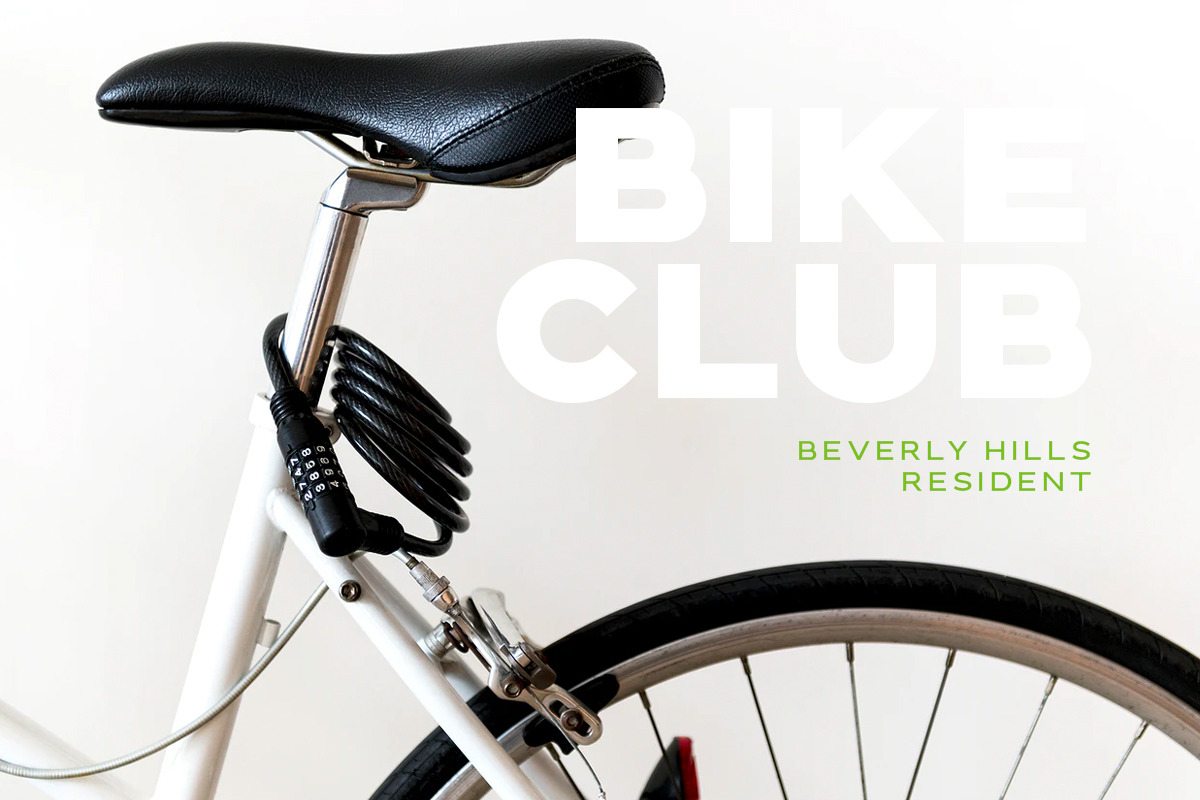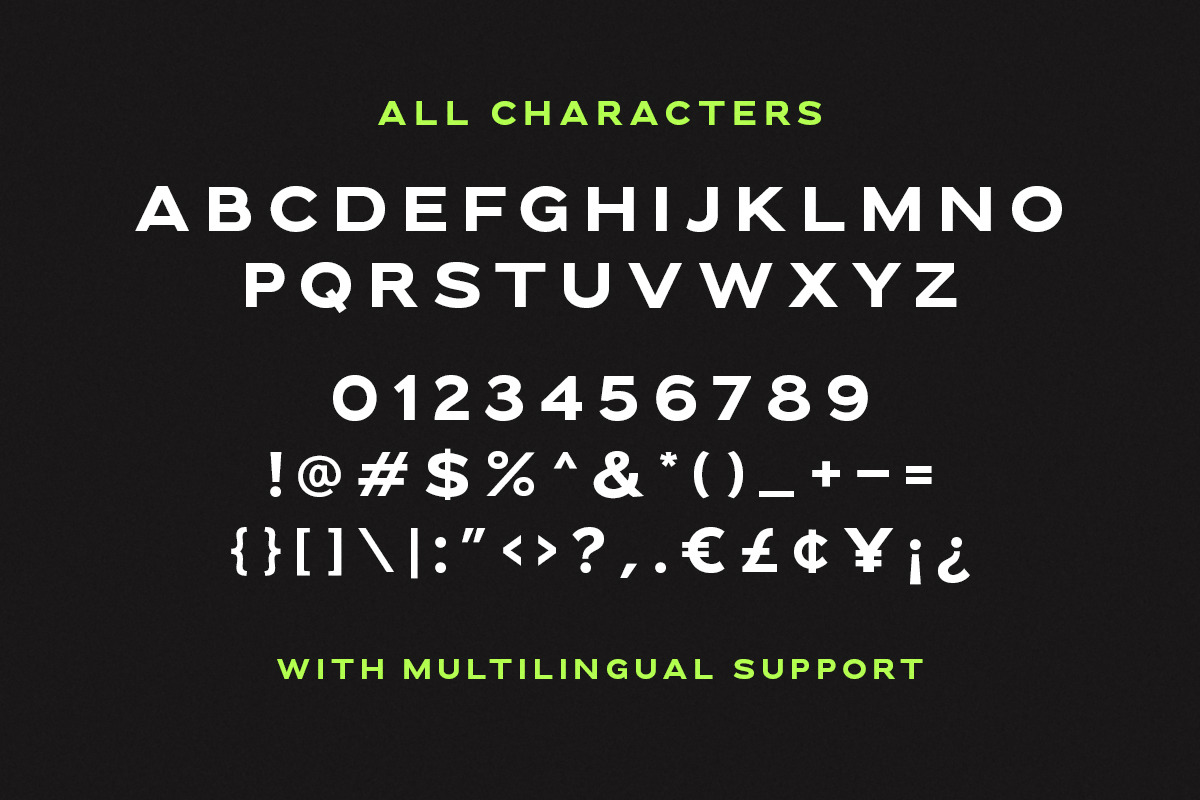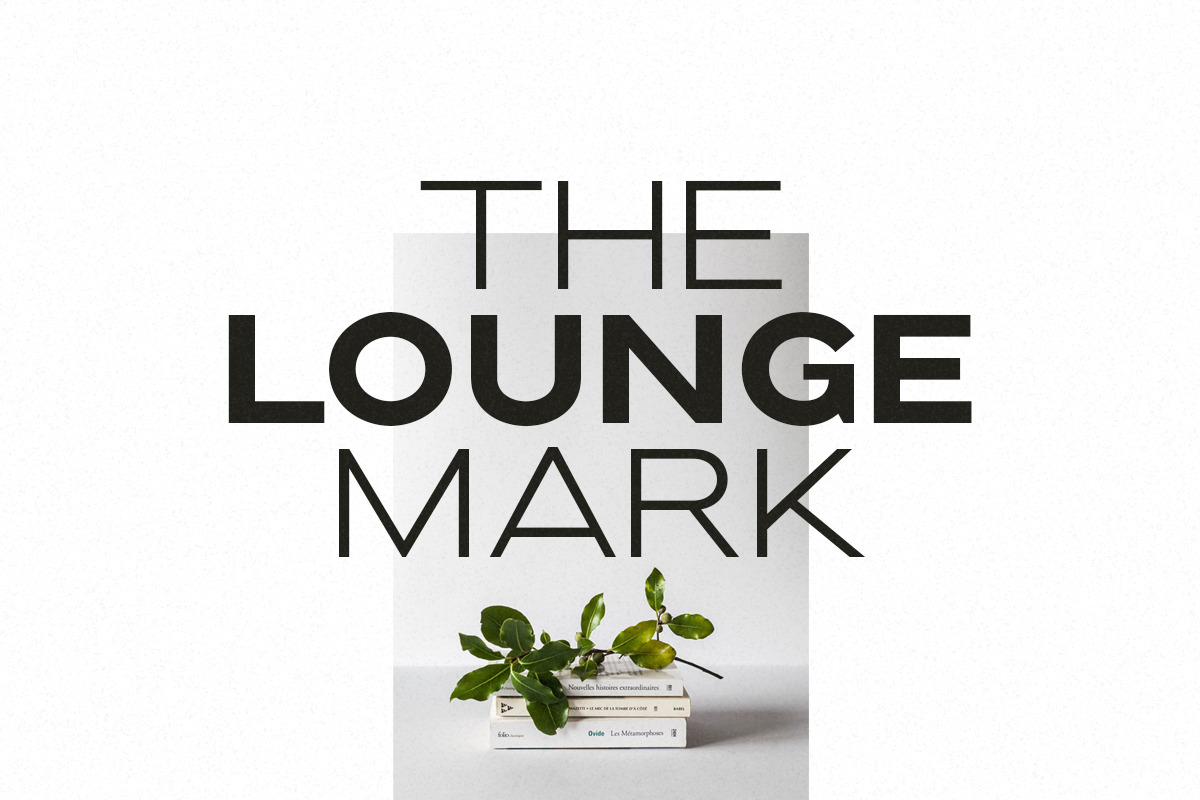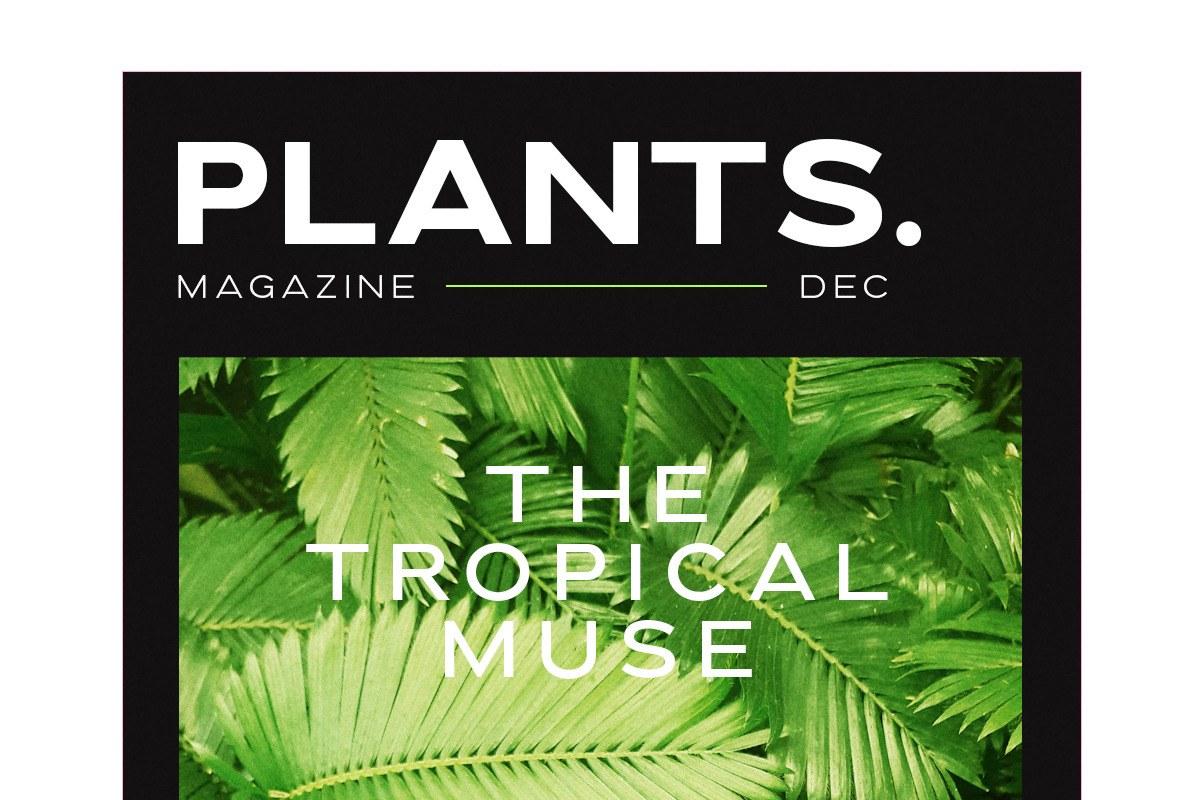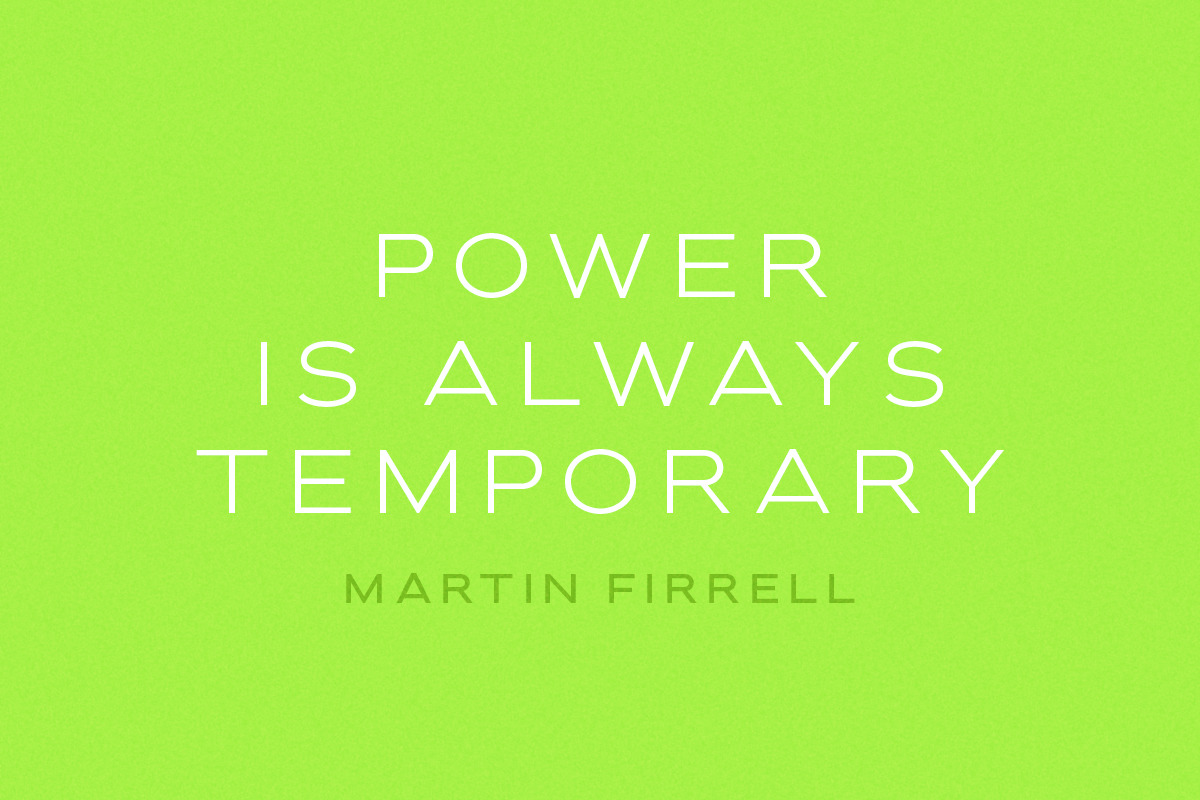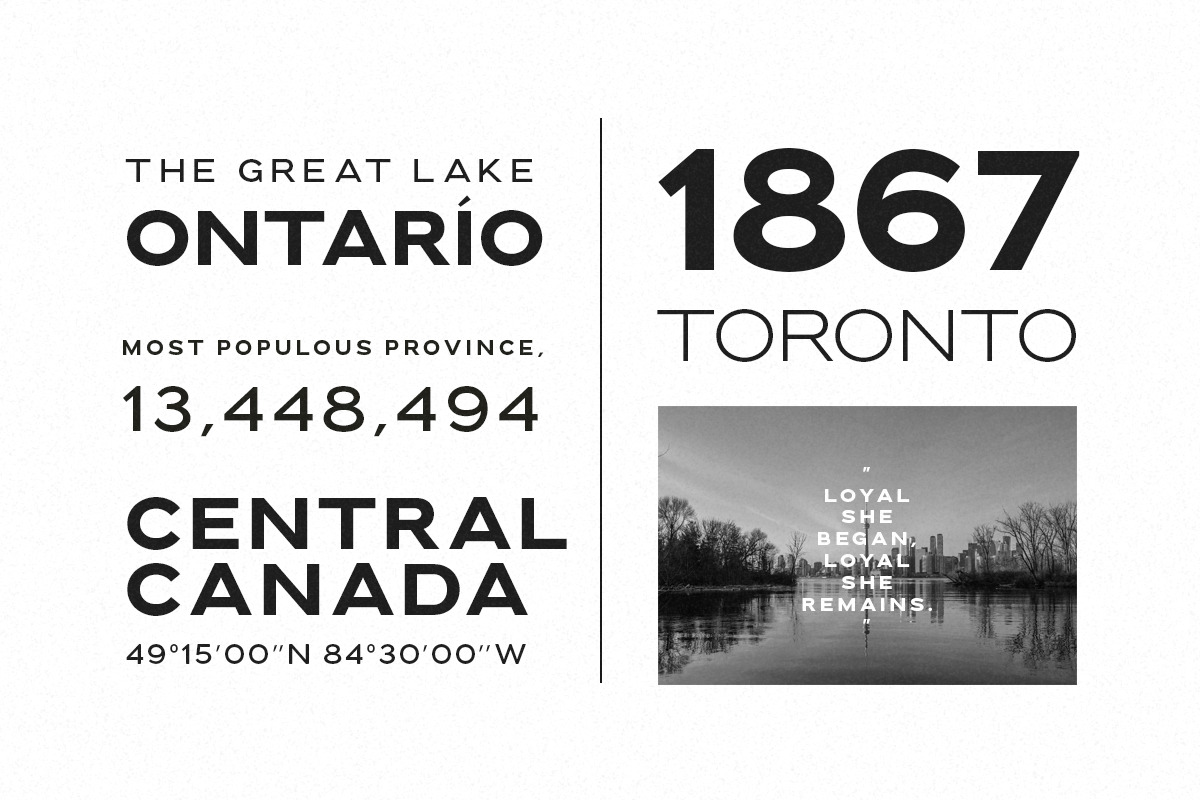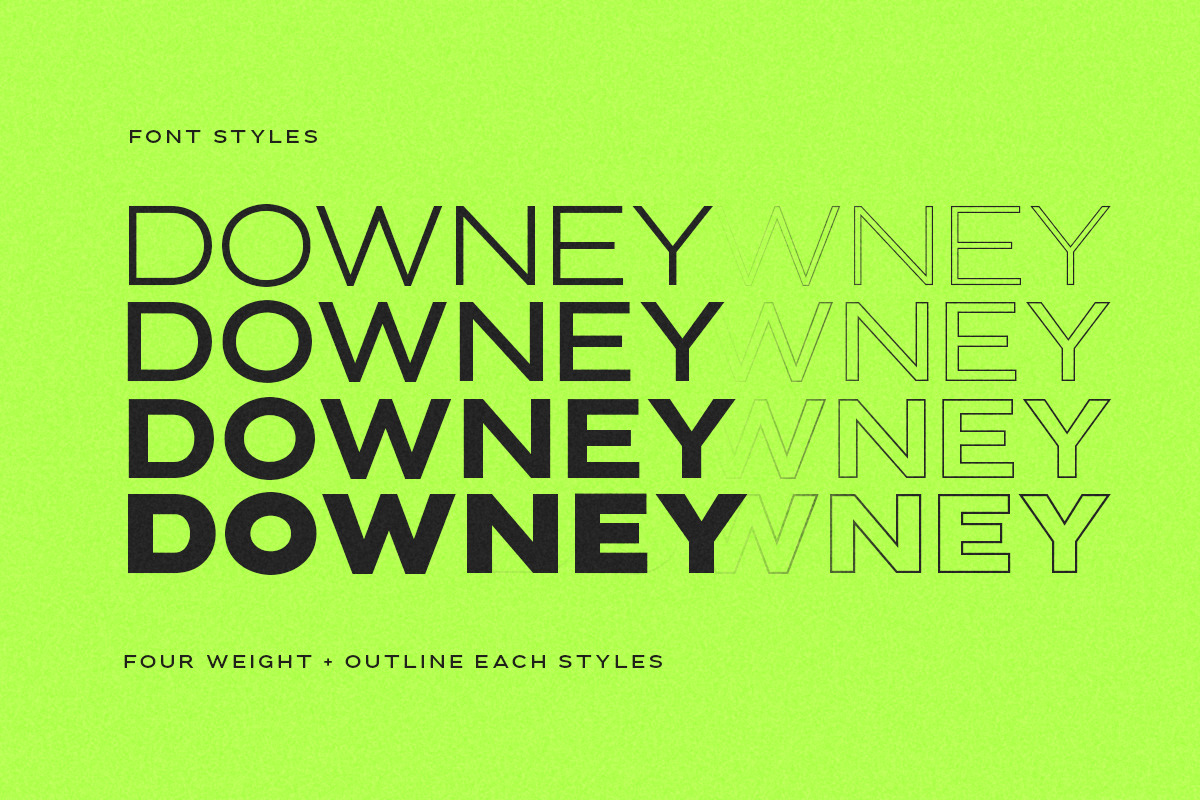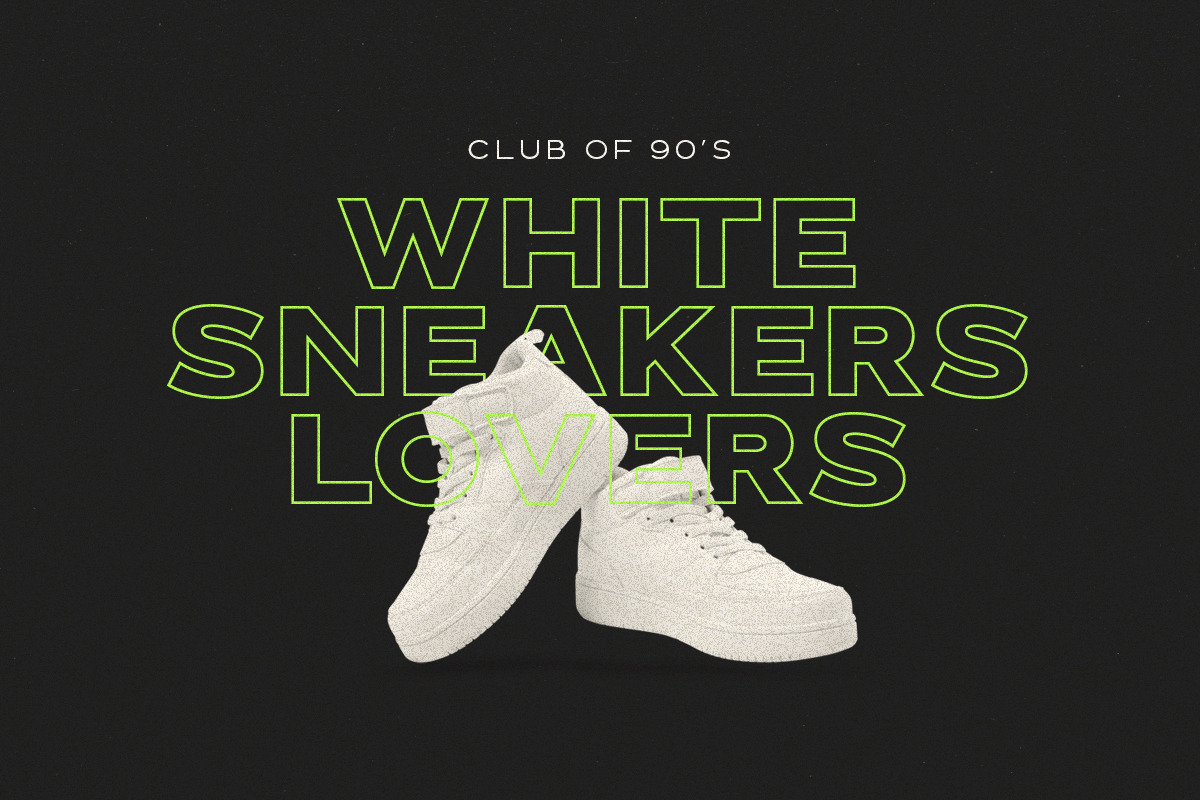
Downey - Powerful Wide Sans
Introducing, a casual and powerful wide sans, Downey Font Family!
Downey is a casual and essential all caps sans. With slightly wide form and strong look, this font will suitable for your any project and designs. You can use it for a tittle, logo, quotes, or become a pairing with any font. This font also contain the outline version each weight. This font also support multi language!